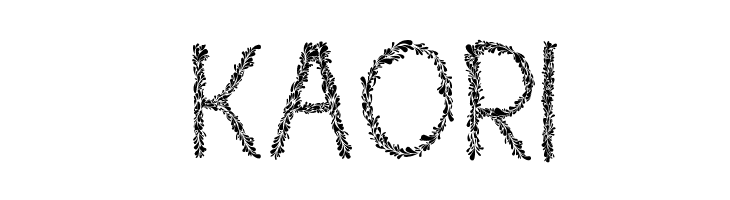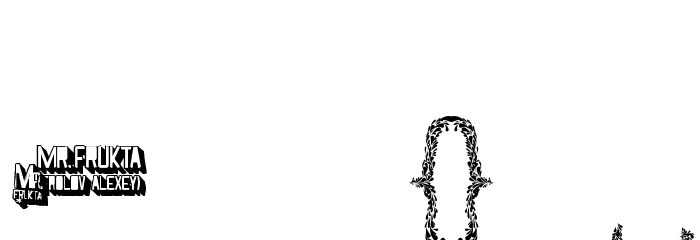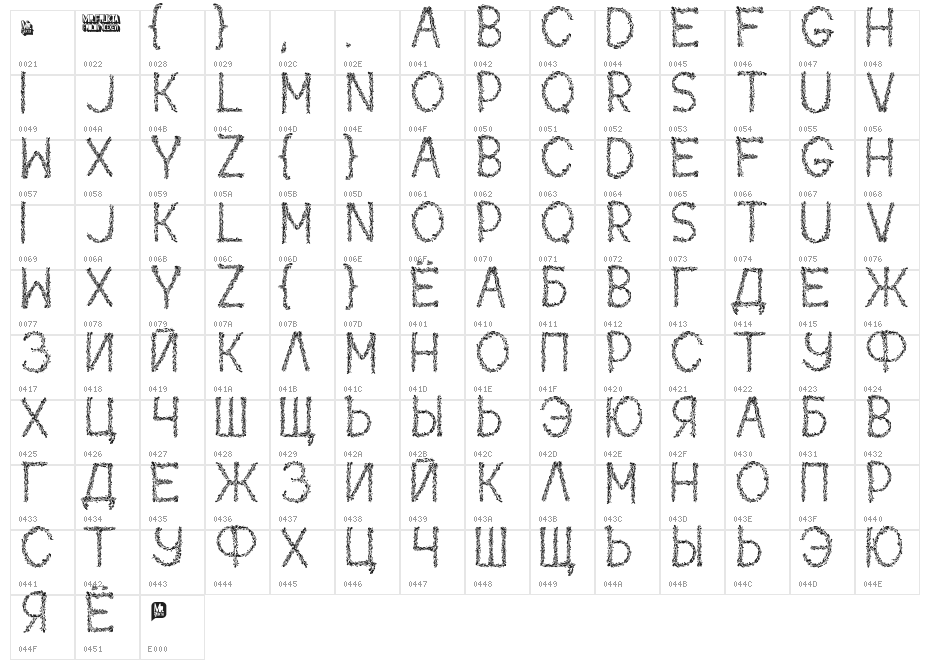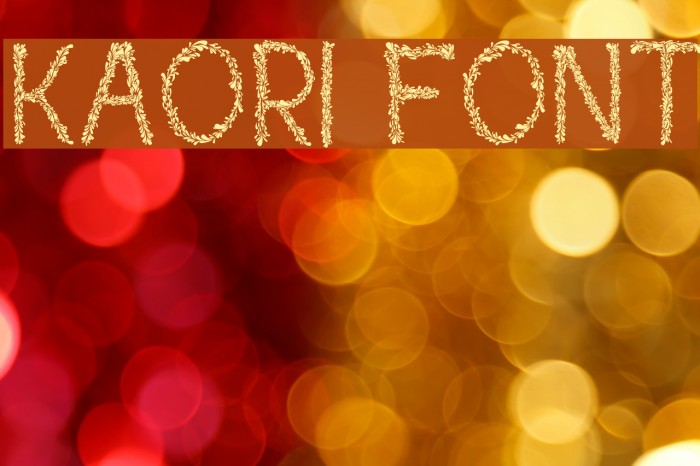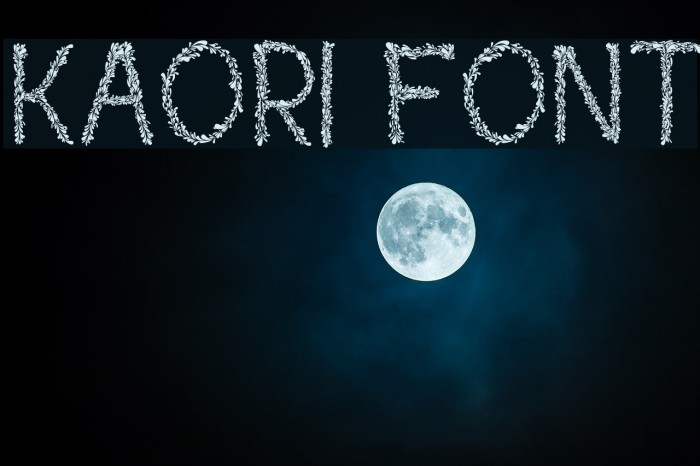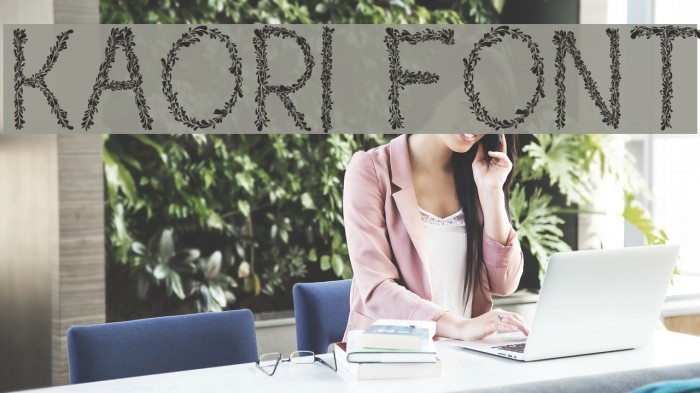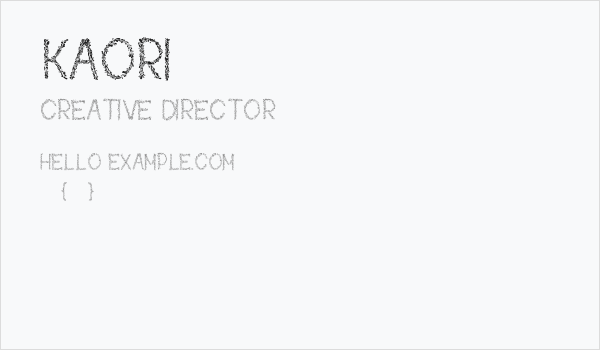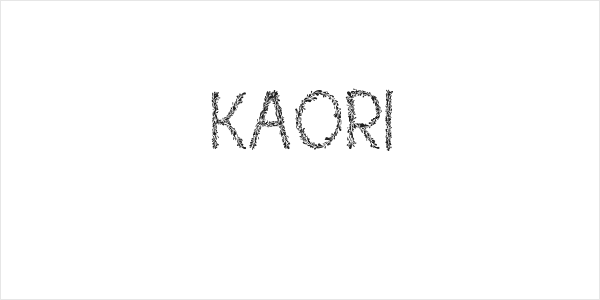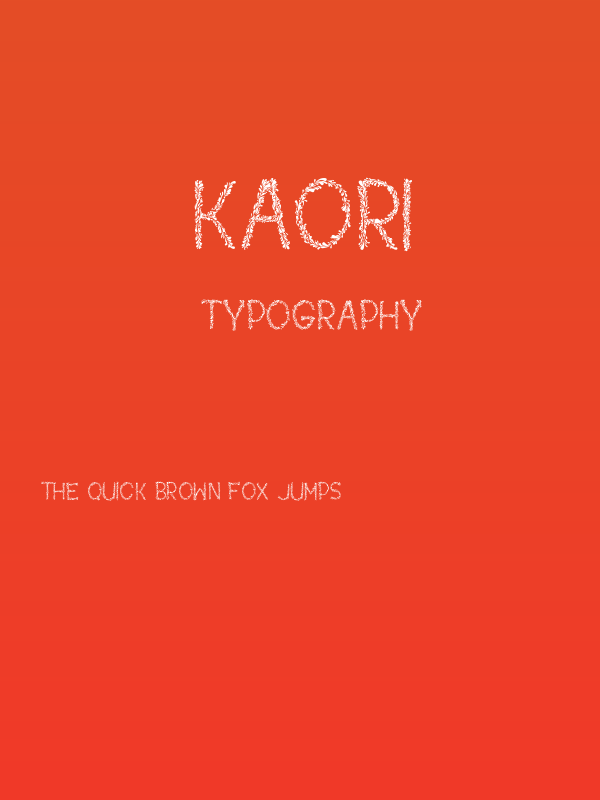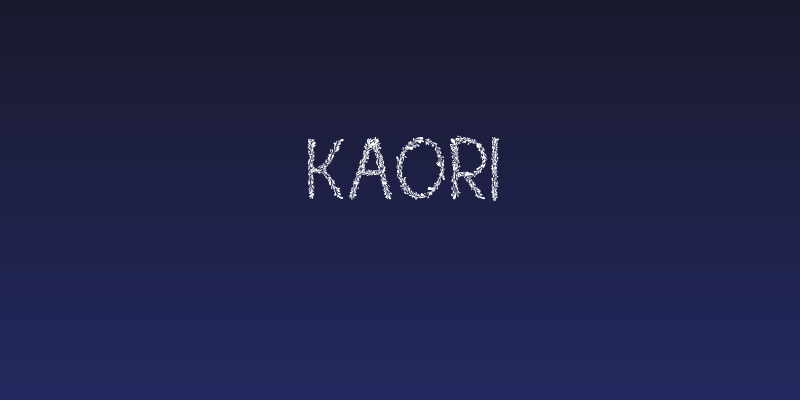
Kaori Font
Kaori Description
This font features a unique, textured appearance that resembles hand-drawn or sketched lines. Each character is composed of intricate, irregular strokes that give it a dynamic and artistic feel. The uppercase letters are bold and prominent, while the lowercase letters maintain the same textured style, ensuring consistency throughout. The numbers and special characters are equally detailed, making this font suitable for creative and expressive designs. Its distinctive style makes it stand out, offering a visually engaging experience.
| Proposed Projects | Ideal for artistic projects, posters, album covers, and any design requiring a creative and expressive touch. |